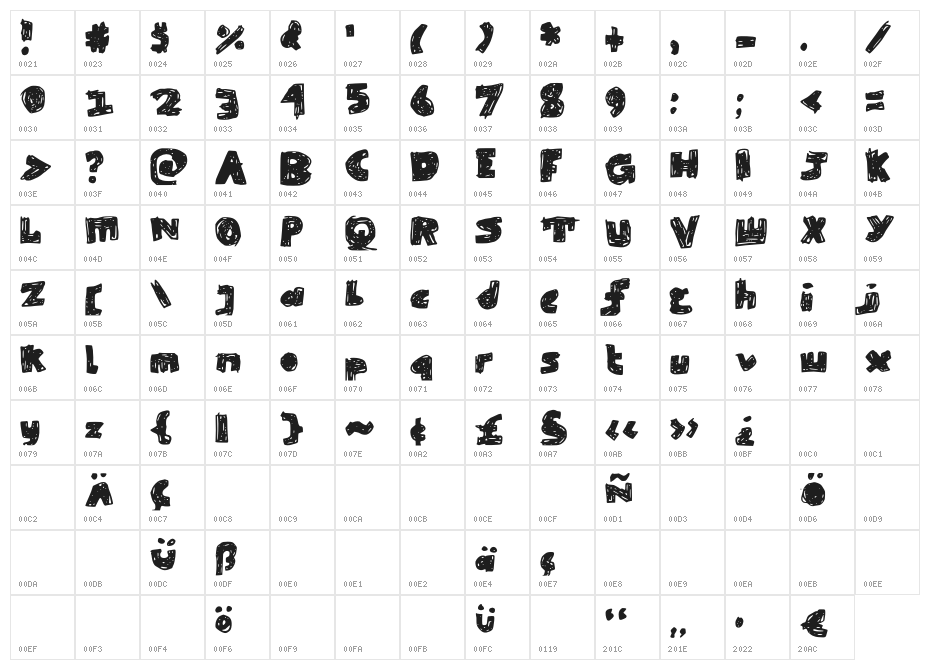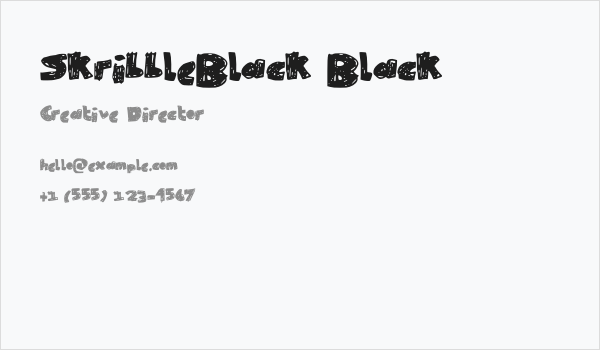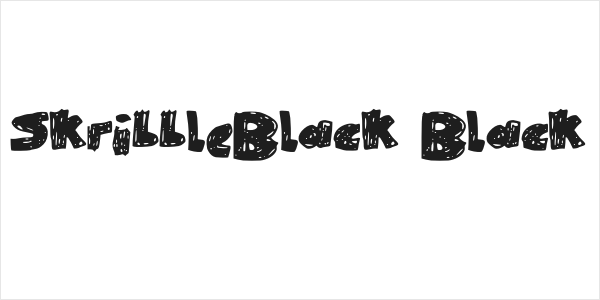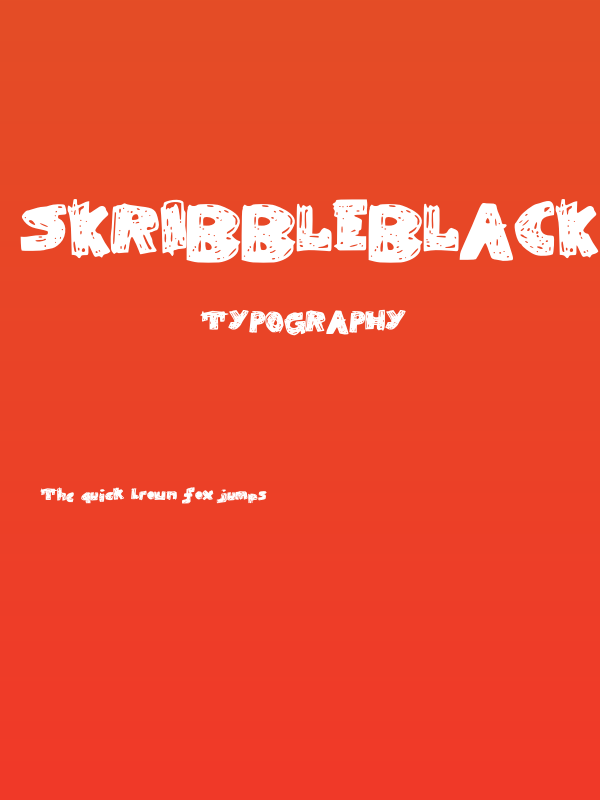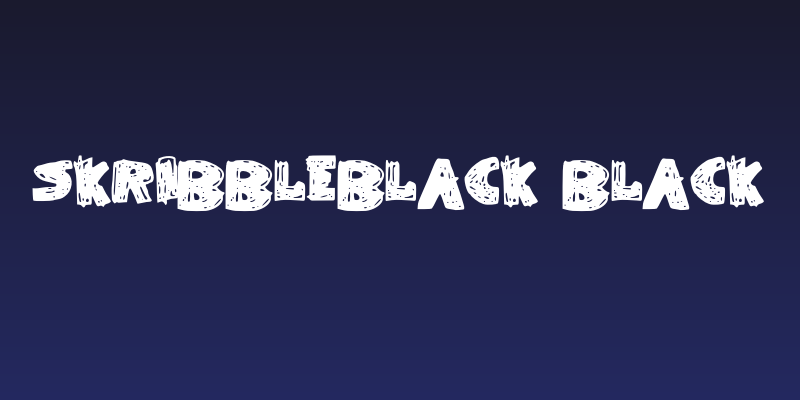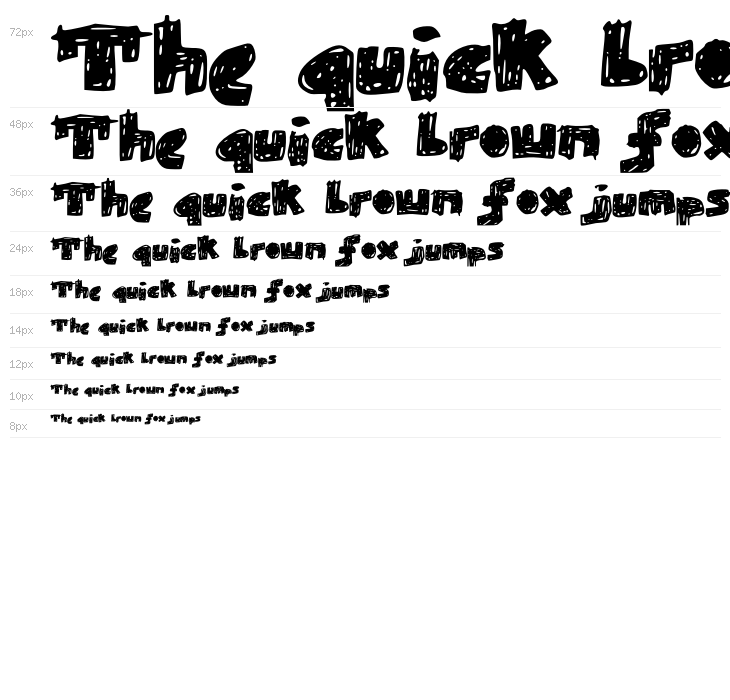
SkribbleBlack Black Font
SkribbleBlack Black Description
This font exudes a playful and artistic vibe, characterized by its bold, hand-drawn appearance. Each letter is filled with scribble-like patterns, giving it a textured and dynamic look. The uppercase and lowercase letters maintain a consistent style, with rounded edges and varying stroke thicknesses that add to its whimsical charm. Numbers and special characters follow the same design ethos, ensuring a cohesive visual experience. The font's irregularities and bold strokes make it stand out, perfect for projects that require a touch of creativity and fun.
| Overall Style | Playful, Artistic, Whimsical |
| Proposed Projects | Ideal for children's book covers, playful branding, creative posters, and artistic social media graphics. |